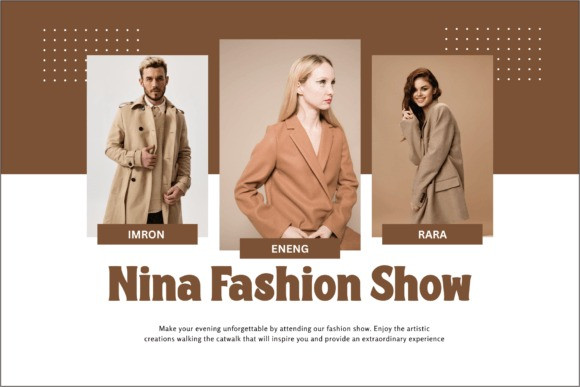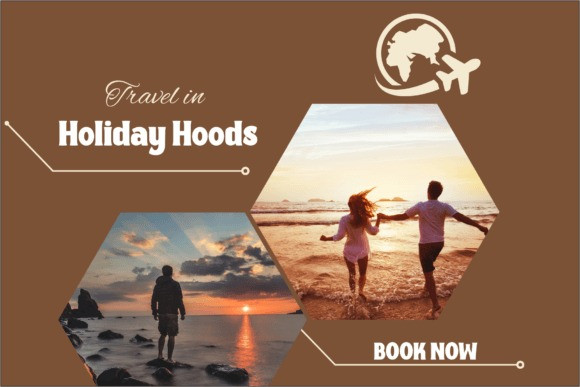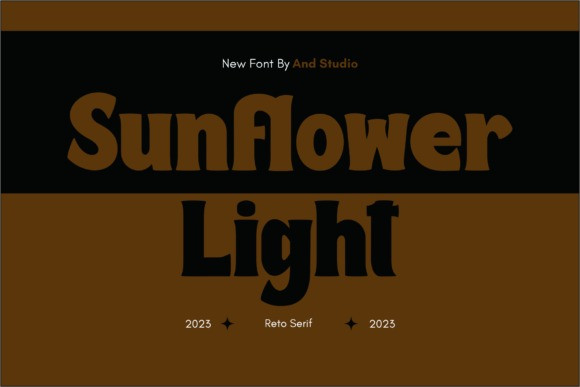
Sunflower Light Font
Sunflower Light Font is a light serif font made with creativity and great care to be your design solution. It is suitable to be applied in various aspects of design and your branding such as logos, branding, titles, social media posts, advertisements, product packaging, product designs, labels, photography, watermarks, special events, magazines, web designs, and more!